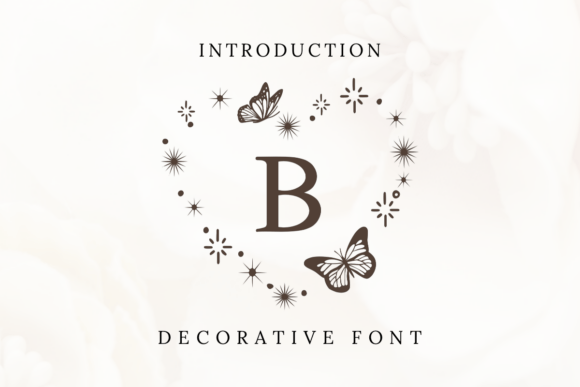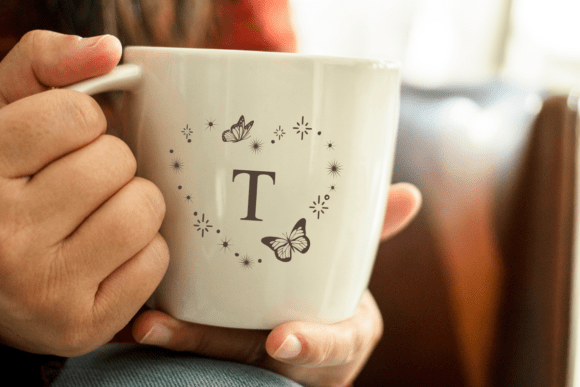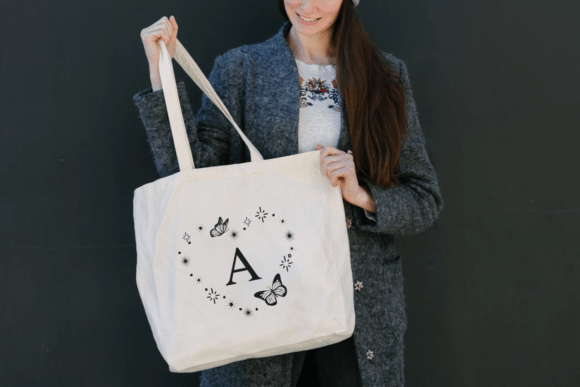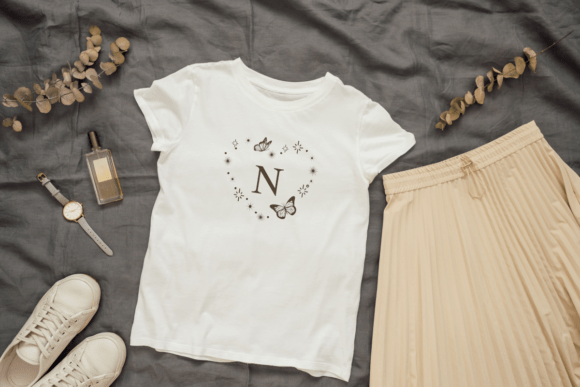
About the Butterfly Heart Font
Unleash your creativity with Butterfly Heart Font, a versatile font perfect for a wide range of applications. Butterfly Heart is a decorative font. You can use it for taking notes, writing a diary, or making greeting cards. However, you can still use it for other designs, such as banners, content, mugs, cards, shirts, stationery, social media posts, and more!
Butterfly Heart’s decorative style is ideal for headlines, short text blocks on branding materials, and eye-catching elements in packaging design. It excels in creating a whimsical, romantic feel, making it perfect for projects targeting a feminine or youthful audience. Avoid using it for body text or UI elements; its ornate details hinder readability in long passages or small sizes.
Consider pairing Butterfly Heart with a clean sans-serif like Open Sans for a balanced contrast, or a classic serif such as Garamond for a more sophisticated look. For a playful feel, a rounded sans-serif like Bebas Neue could work well.
The font’s overall personality is charming and expressive, lending itself to brands focused on beauty, fashion, or handcrafted goods. Its decorative nature ensures it will make a strong visual impact where used appropriately.